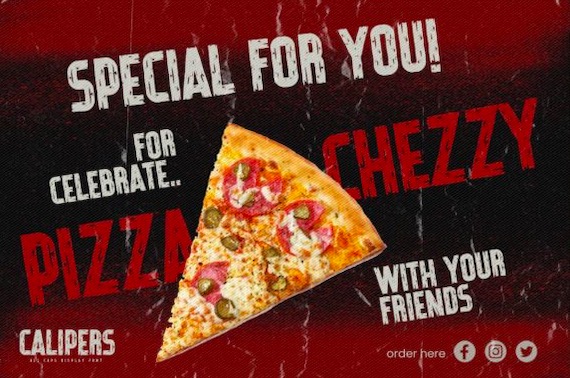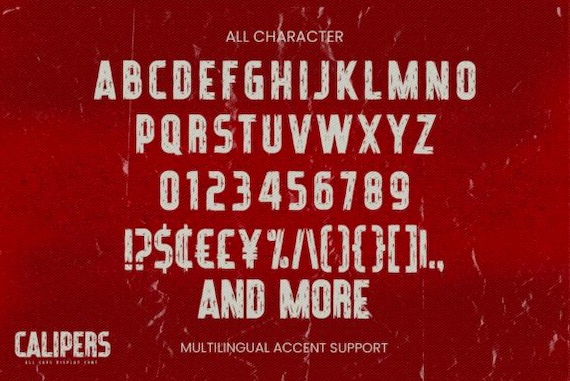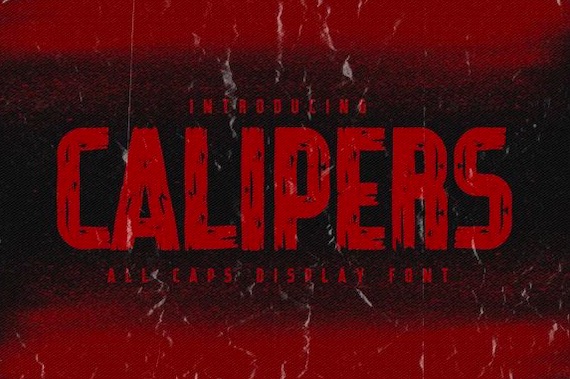
Calipers is a powerful, thick lettered, and rough textured display font that was created and shared by Gassstype Studio. This gorgeous font will look stunning on any food menu, poster, flyer, or print. Use it for your designs and explore its endless possibilities.
Calipers Display Font
Font family: Calipers Font